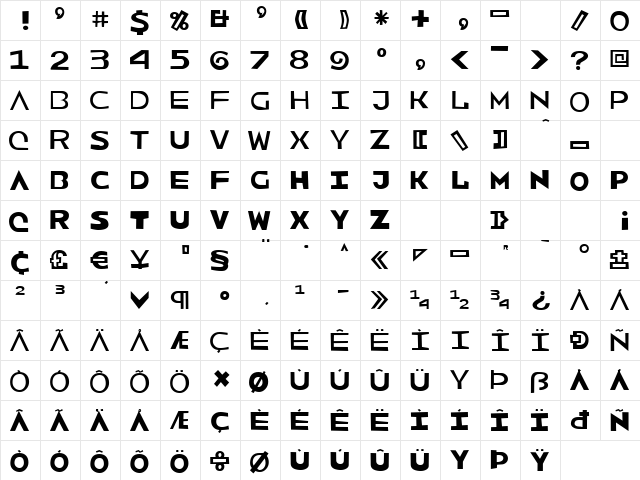
Bfrika 2Tone One
Design Context for Bfrika 2Tone Typeface
Bfrika 2Tone takes a measured approach to typography — its balanced proportions and neutral character make it a reliable workhorse for both digital and print work.